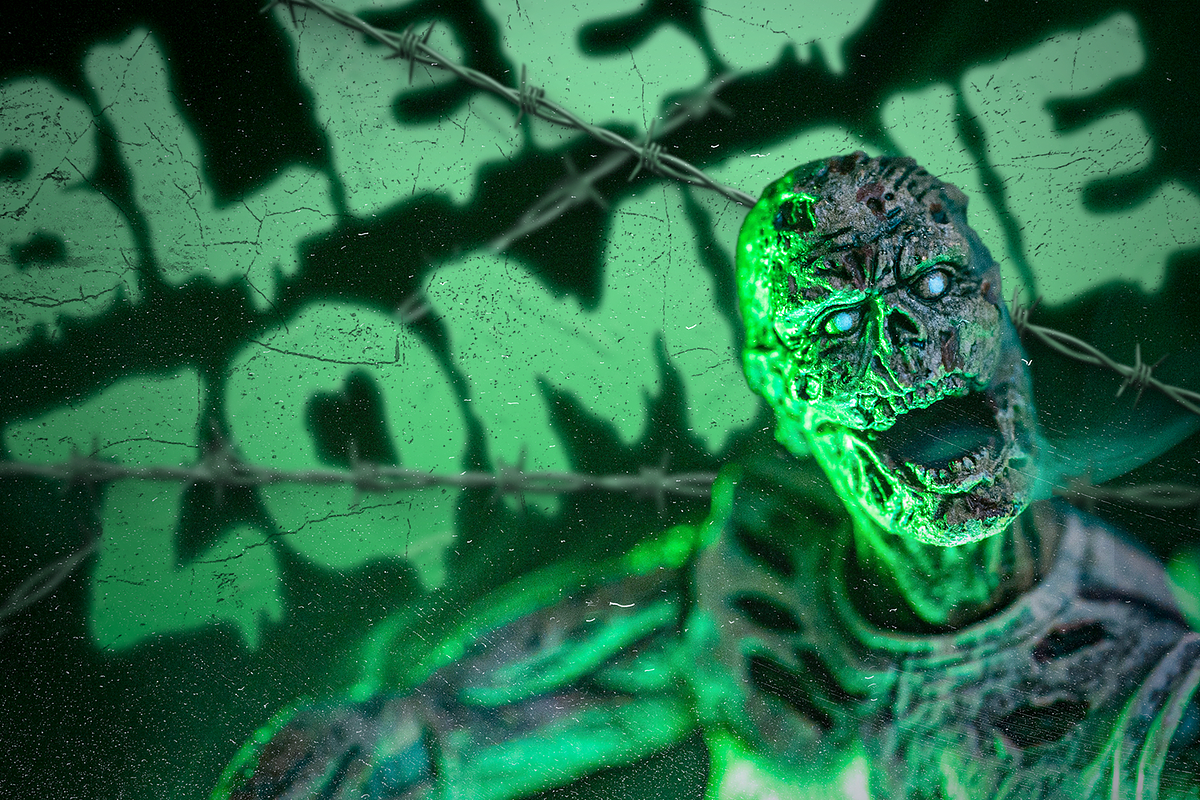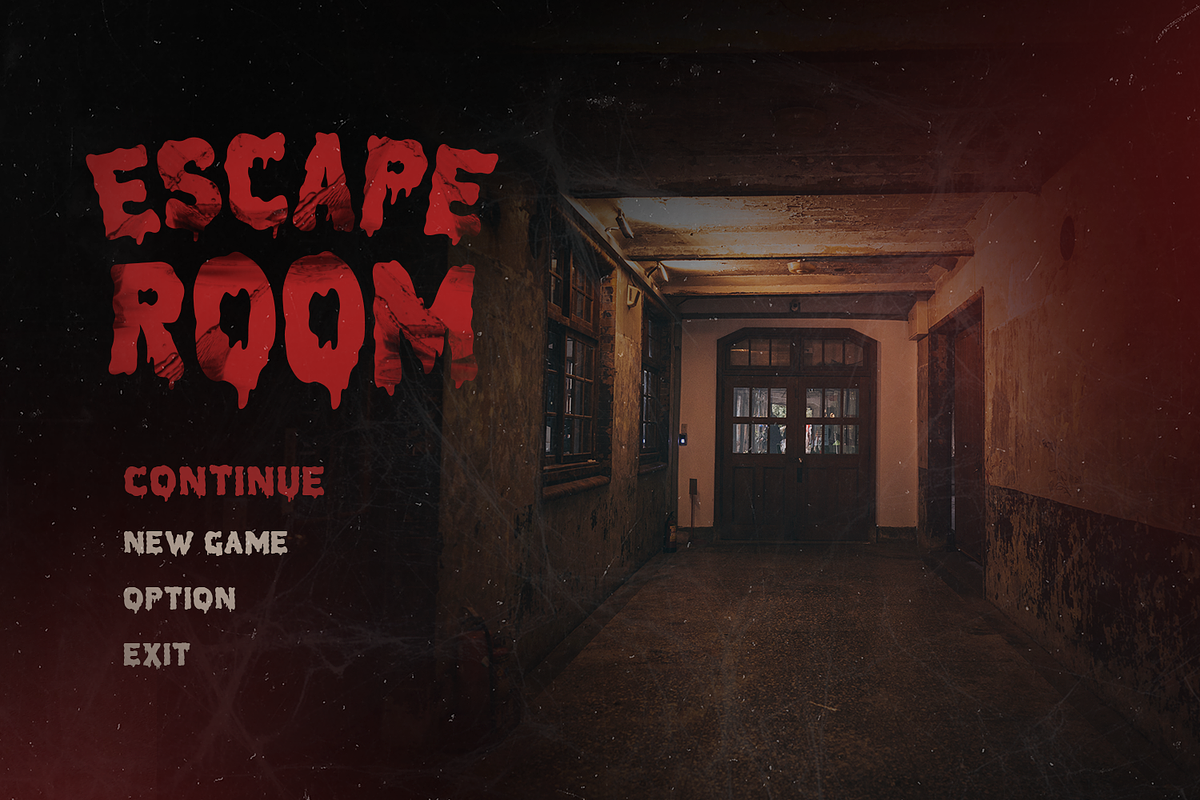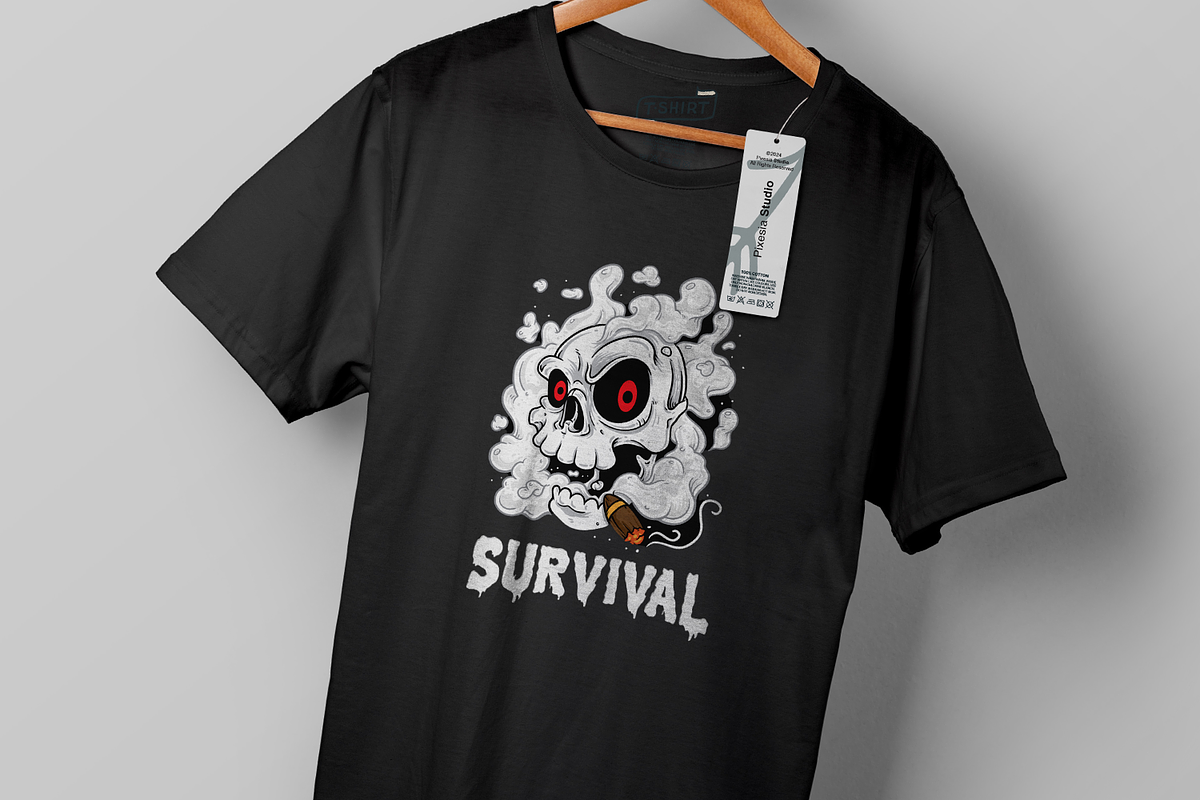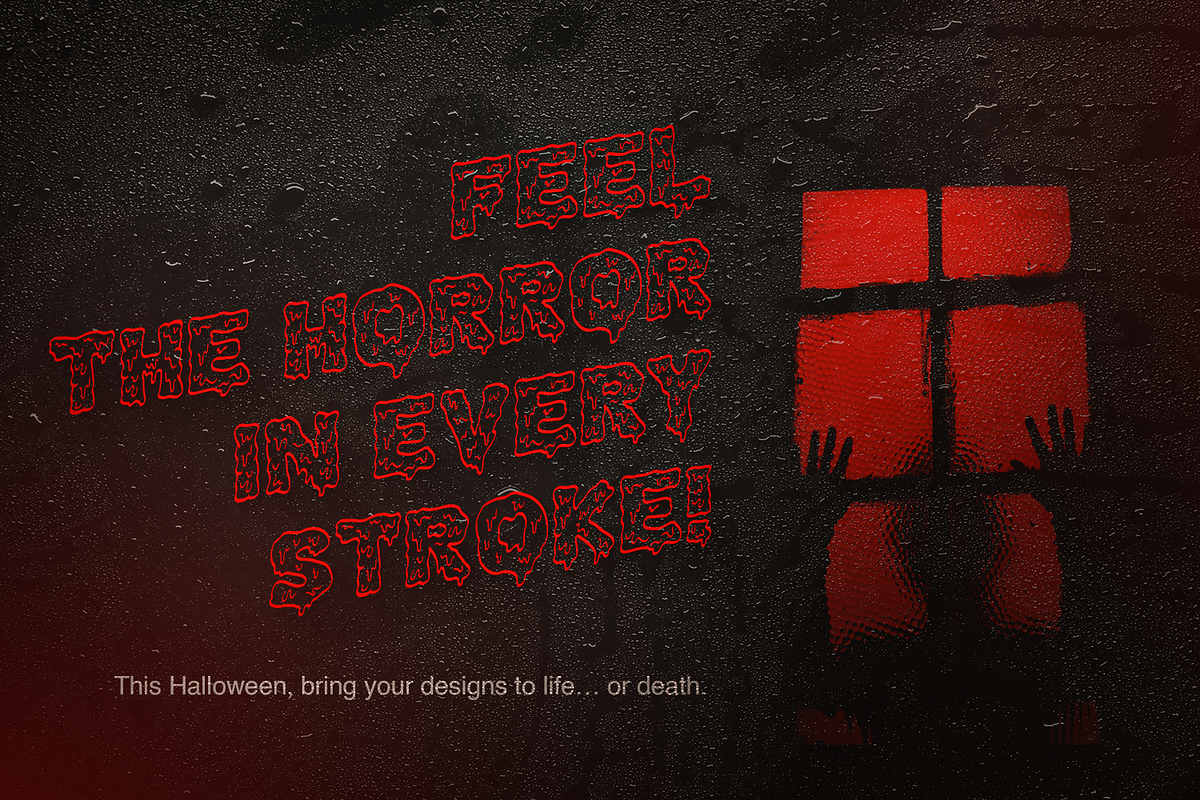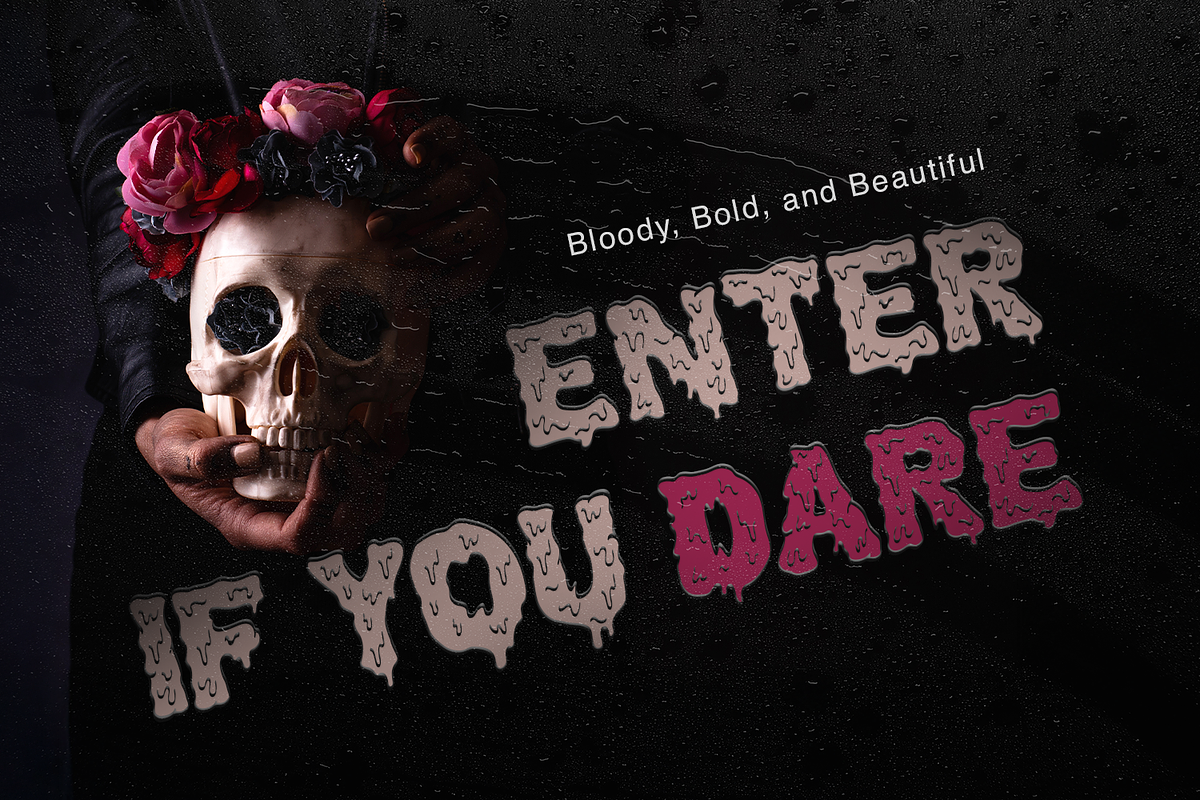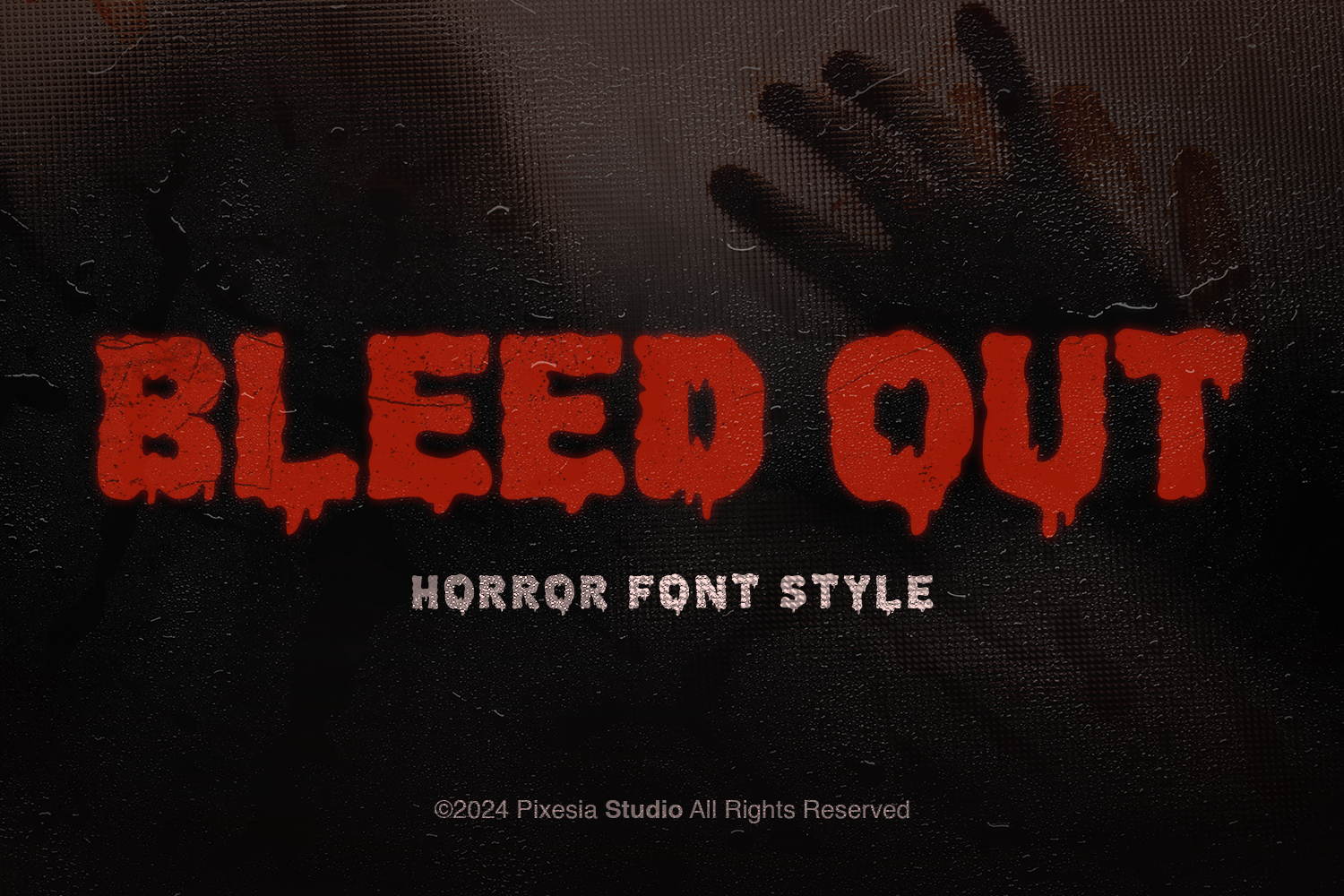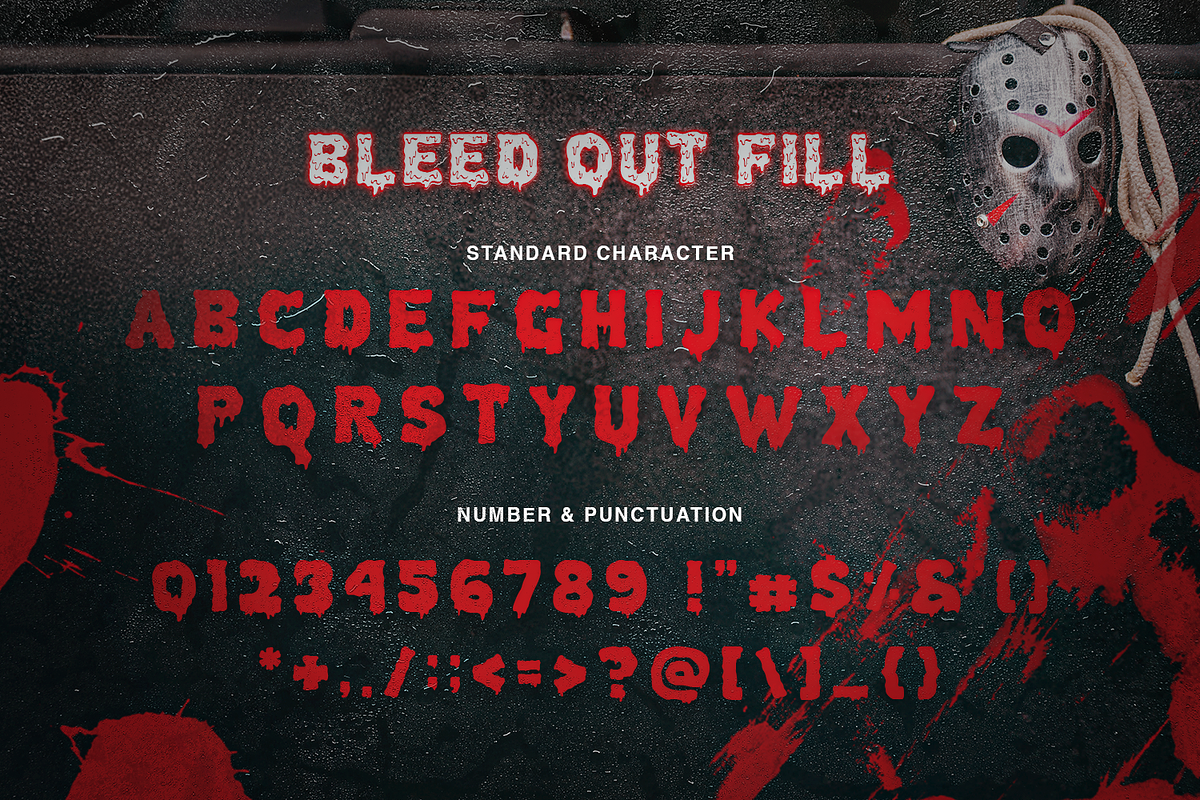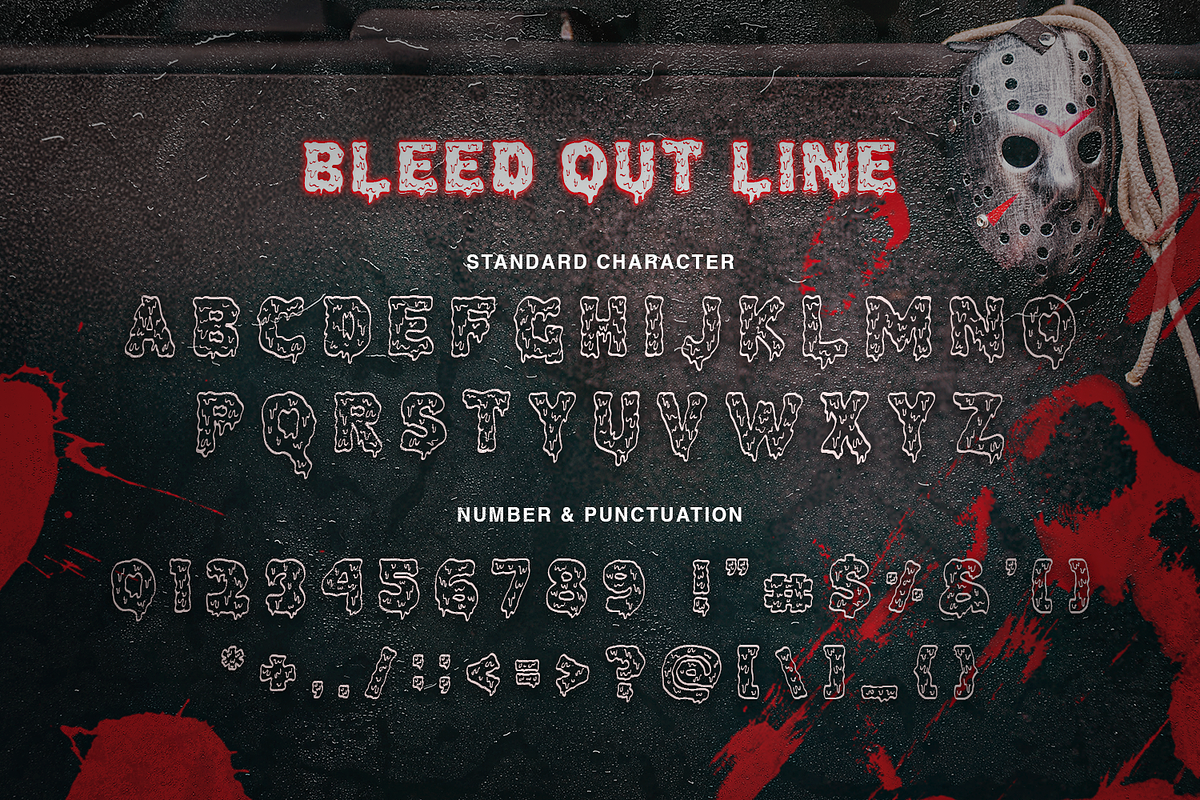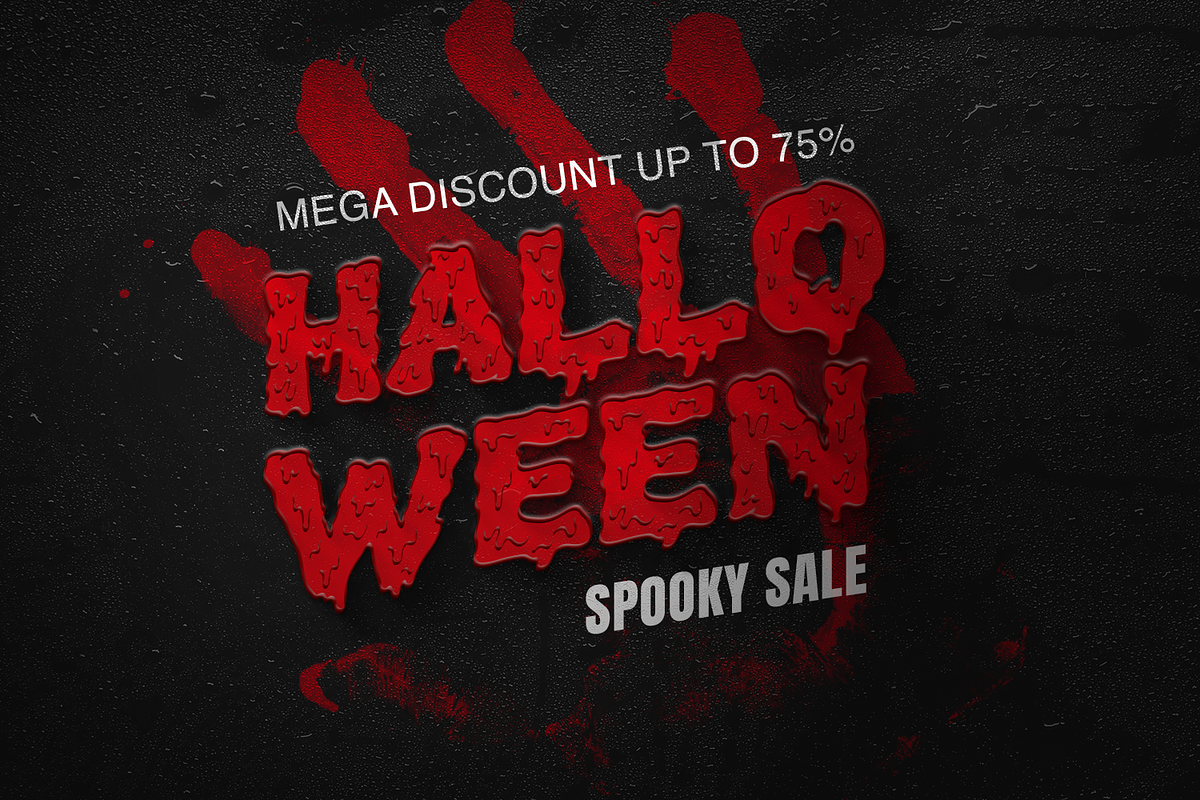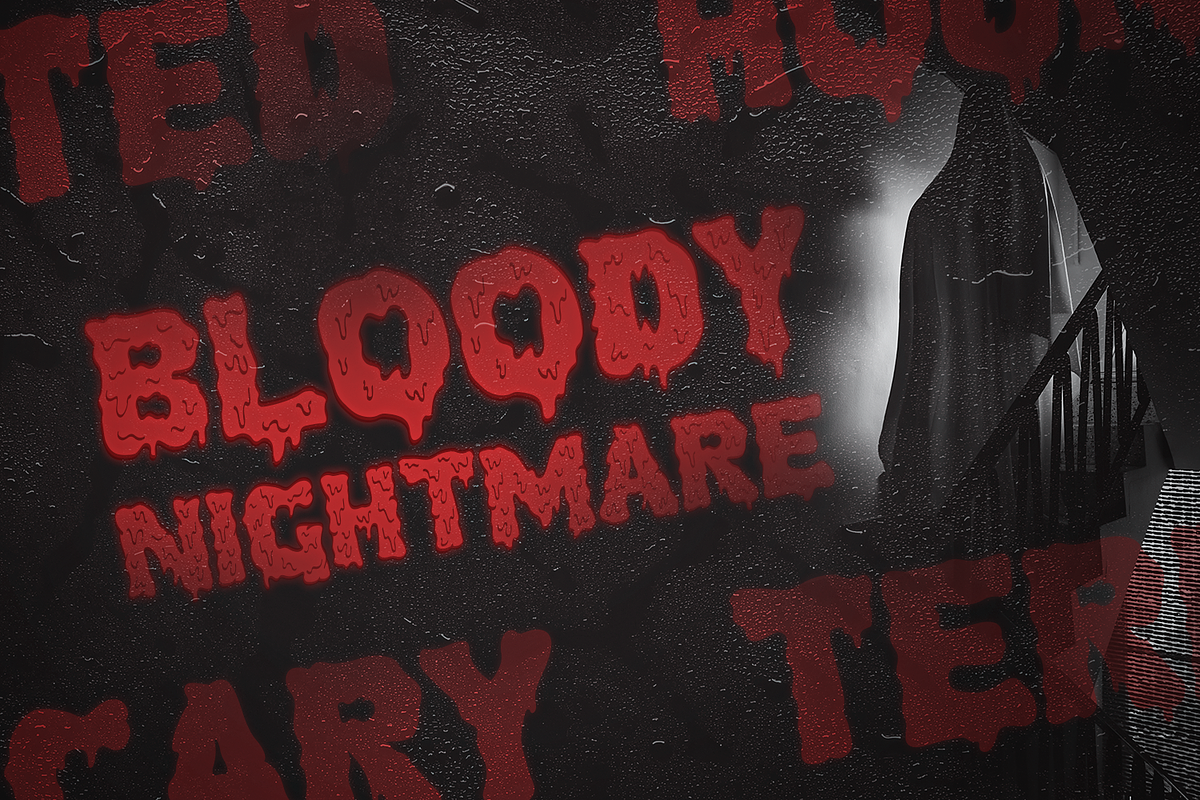
Bleed Out - Dripping Display Font
Introducing Bleed Out - Dripping Display Font
Bleed Out is a bold and dramatic dripping font that instantly grabs attention with its edgy, one-of-a-kind style. Its unique dripping effect adds a striking, dramatic touch that’s perfect for making your designs unforgettable.
Bleed Out is perfectly suited for horror-themed designs, invitations, edgy posters, album covers, bold logos, social media graphics, merchandise, product packaging, spooky event promotions, video titles, and any project seeking a dramatic, bold, and eye-catching aesthetic.
- All Caps